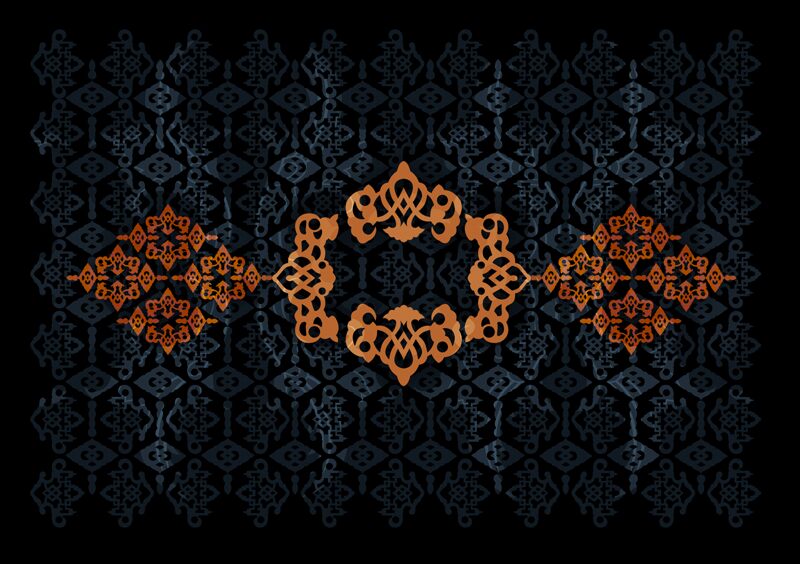
Djoewana is a free ornamental art dingbat font filled with symmetrical crests, curling flourishes, and compact decorative silhouettes. The collection shifts between dense, lace-like emblems and broader shapes with smooth, sweeping edges, yet repeated mirrored construction gives the symbols a related look.
Packaging is a convincing medium for these motifs, particularly on labels for gifts, specialty foods, or handcrafted goods. They can also furnish chapter ornaments in publishing and decorative marks for event stationery. Their strong symmetry lets each symbol function like a small illustrated badge, linking borders, patterns, and other ornamental artwork.